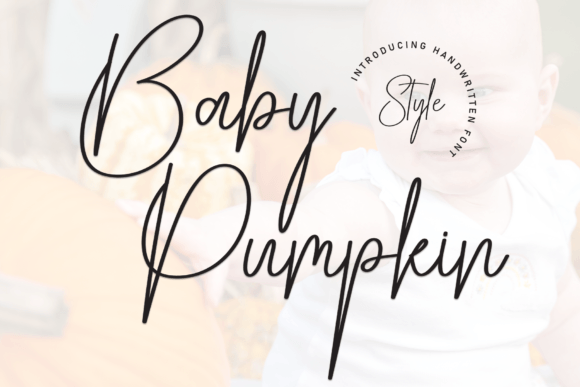
Journey into the world of Baby Pumpkin Font, a spirited handwritten font that exudes warmth and charm. Its delightful curves and playful characters dance across the page, evoking a sense of nostalgia and innocence. Dive into the creative possibilities and let your imagination soar as you explore the versatile nature of this captivating font.
With its effortless flow and enchanting personality, Baby Pumpkin Font is the perfect choice for adding a touch of whimsy and playfulness to your designs. Whether you're a seasoned designer or just starting out, this font will elevate your projects to new heights. Unleash your creativity and watch as your words take on a life of their own, captivating your audience with their unique charm.
Baby Pumpkin Font effortlessly adapts to a myriad of design styles, making it a versatile tool for any creative project. From eye-catching logos and branding to heartfelt invitations and social media posts, this font seamlessly blends with your vision. Its inherent versatility allows you to effortlessly create designs that leave a lasting impression, enchanting your audience with their captivating beauty.
Experience the joy of crafting designs that resonate with your audience. Baby Pumpkin Font empowers you to connect with your customers or readers on a deeper level, evoking emotions and creating a lasting impact. Whether you're designing marketing materials, crafting personal invitations, or simply expressing yourself through art, this font becomes an extension of your creativity, allowing your messages to shine with authenticity and charm.
Step into the realm of Baby Pumpkin Font and unlock a world of endless possibilities. Let your imagination run wild as you explore the boundless creativity that awaits you. Whether you're a seasoned designer seeking a fresh perspective or a novice eager to make a statement, this font is your gateway to creating designs that capture hearts and minds. Embrace the magic of Baby Pumpkin Font and embark on a journey of artistic exploration and self-expression.